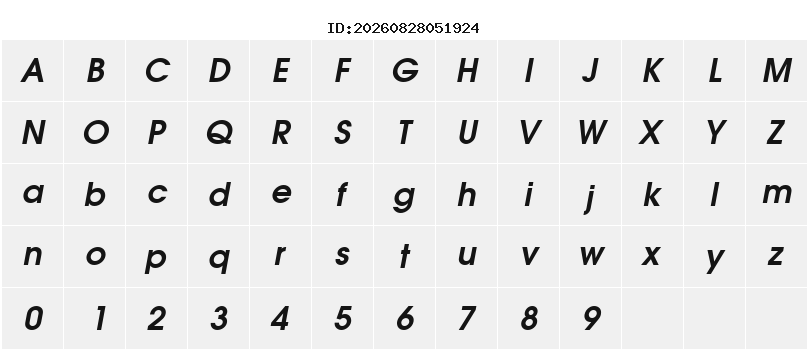
Trendex SSi Preview
• Font Name: Trendex SSi
• Font Style: Semi Bold Italic
• Full Font Name: Trendex SSi Semi Bold Italic
About Trendex SSi.ttf
Trendex SSi.ttf is a modern, elegant sans-serif font designed for ultimate readability and visual harmony. Perfect for branding, headlines, web design, and print materials.